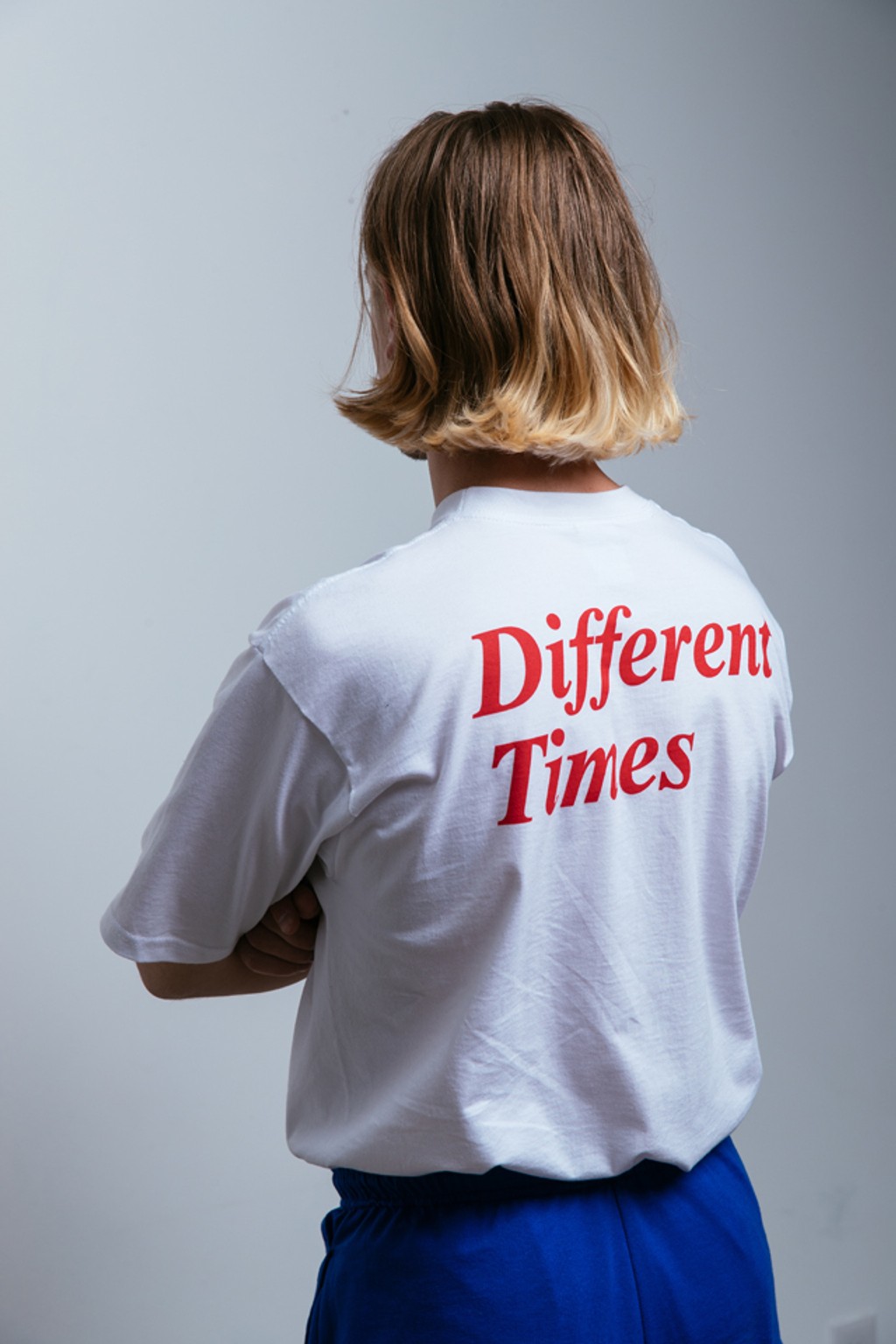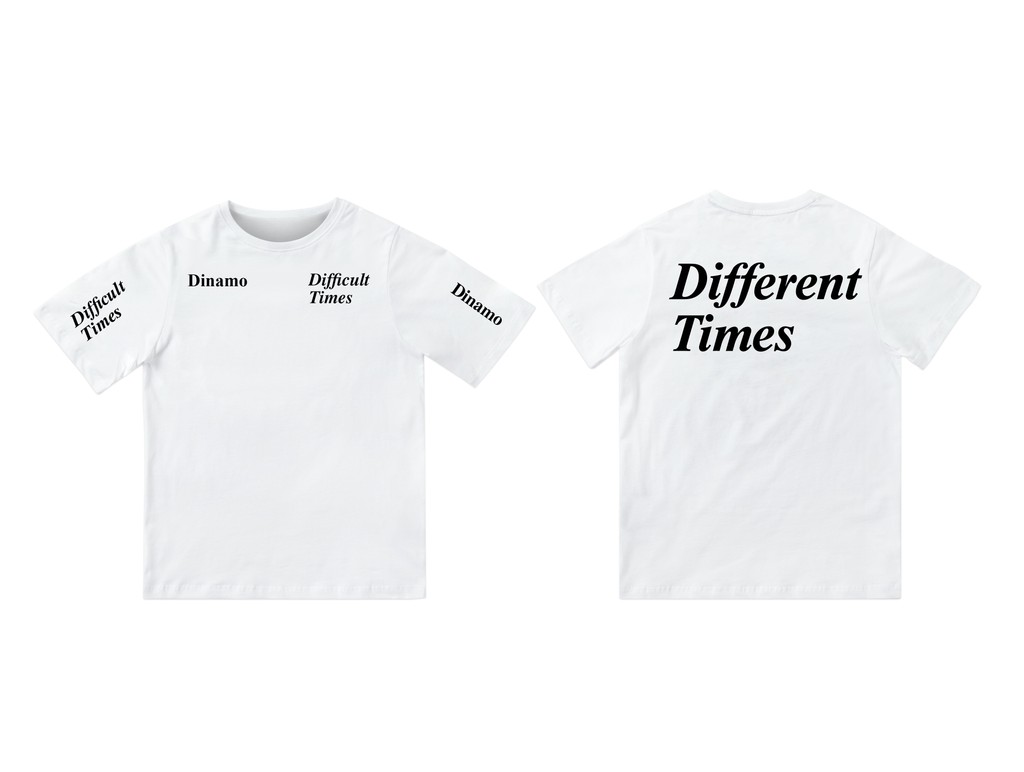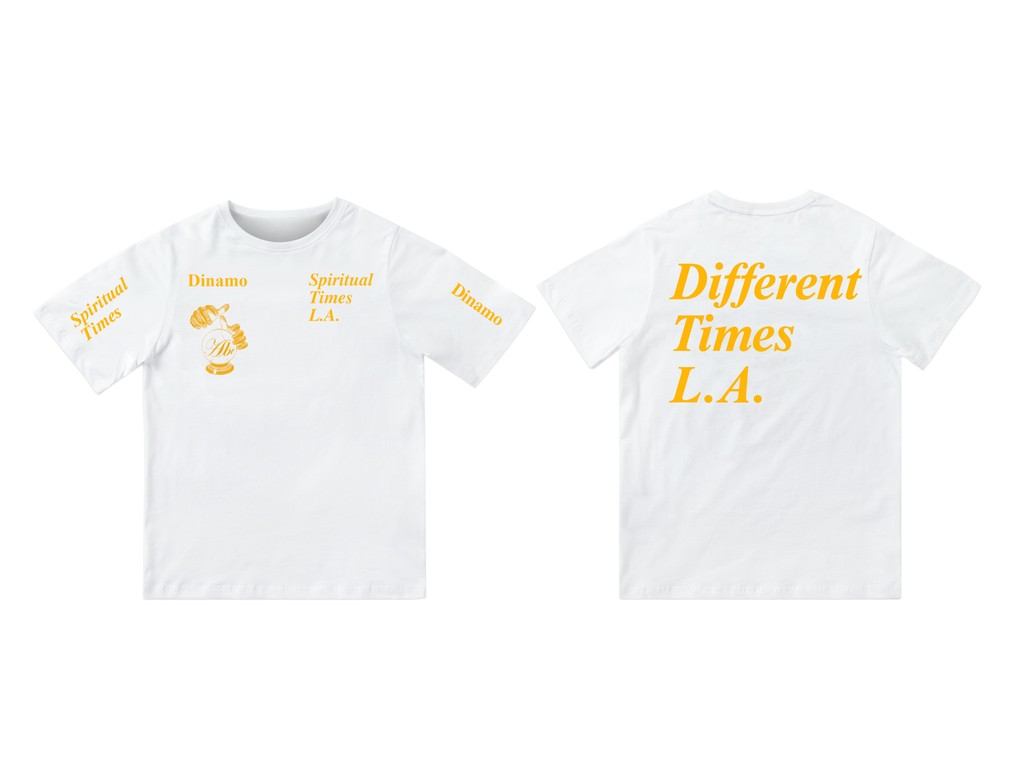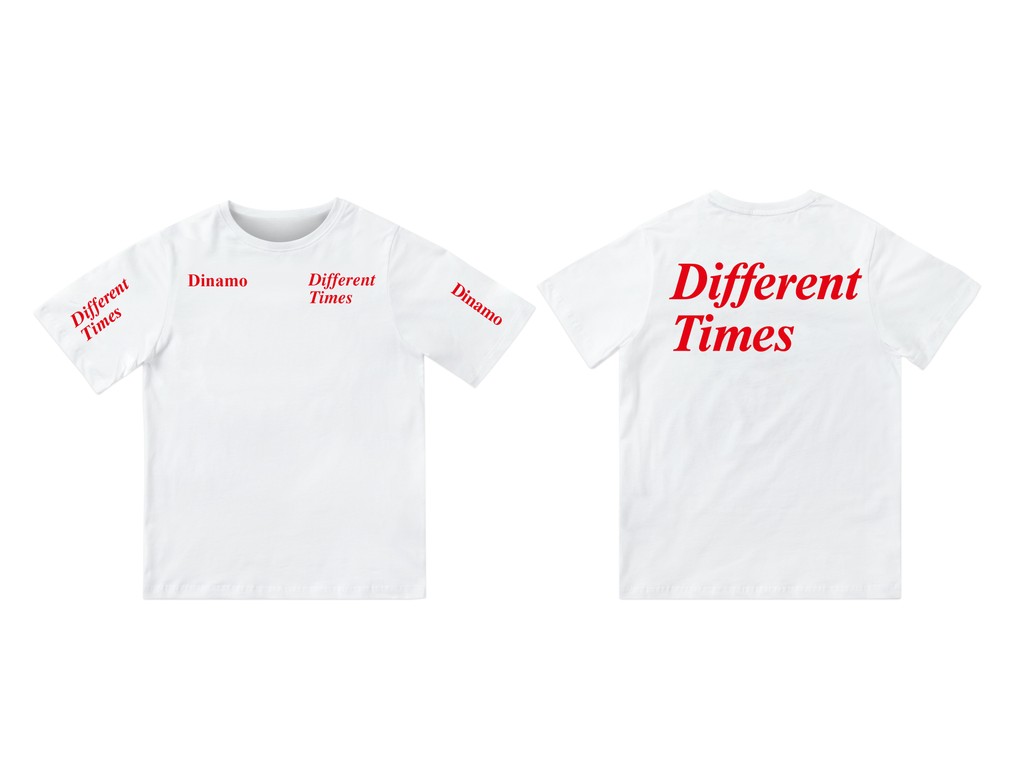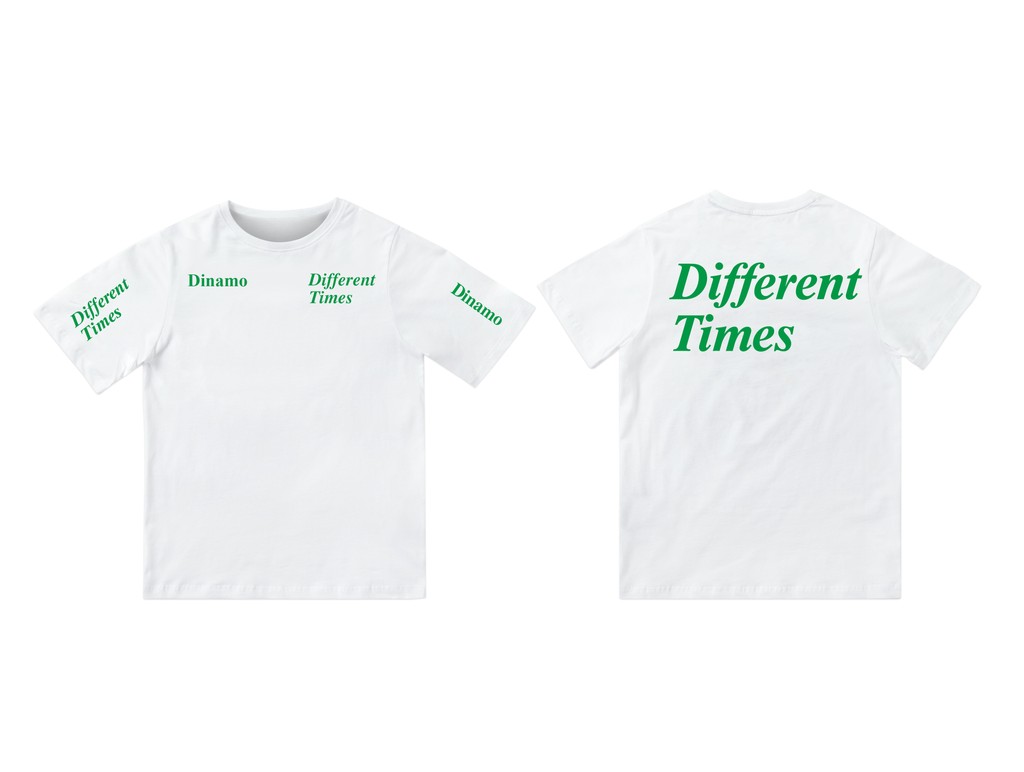
Different Times 2013–2018
They say different times call for different measures. It’s why since 2013, we’ve released a variety of editions of our Different Times t-shirt, modifying slogans and designs depending on the context of their release.
The idea for the original Different Times t-shirt emerged from our co-founder Johannes Breyer’s Bachelor thesis at the Gerrit Rietveld Academie, where he asked what it means to be a type designer today—with a mouse in your hand and keyboard at your fingertips. Two years later, we released the very first Difficult Times slogan tee in blue, and soon after in red, to remind ourselves and others that different times require different approaches. Cheesy, right?
To date, the series has featured five different digital versions of the ever-ubiquitous Times, including Times Ten, Times New Roman, Times LT, AT CG Times, and MT Times Bitmapped. All of these fonts are more or less identical, and therefore serve to undermine—or at least subtly derail—the message splashed across the t-shirt’s front, back, and sleeves.
For each new addition, the original template has been edited to reflect what’s going on during that particular moment—either in politics and culture, or the lives of the Dinamo team at large. In 2016, the Brexit vote and Trump’s election called for our stark black Difficult Times edition. A few months later, a light, sunflower yellow Spiritual Times marked the end of our short stay in Los Angeles, California (and one memorable trip to a psychic).
Most lately, in 2018 we teamed up with the Danish fashion label Wood Wood for Various Times to celebrate the five year anniversary of Dinamo. All of our past slogans featured across this white silkscreen on black fabric version, as well as one new slogan, “Quality Times,” to reflect the high-quality products of our collaborator.